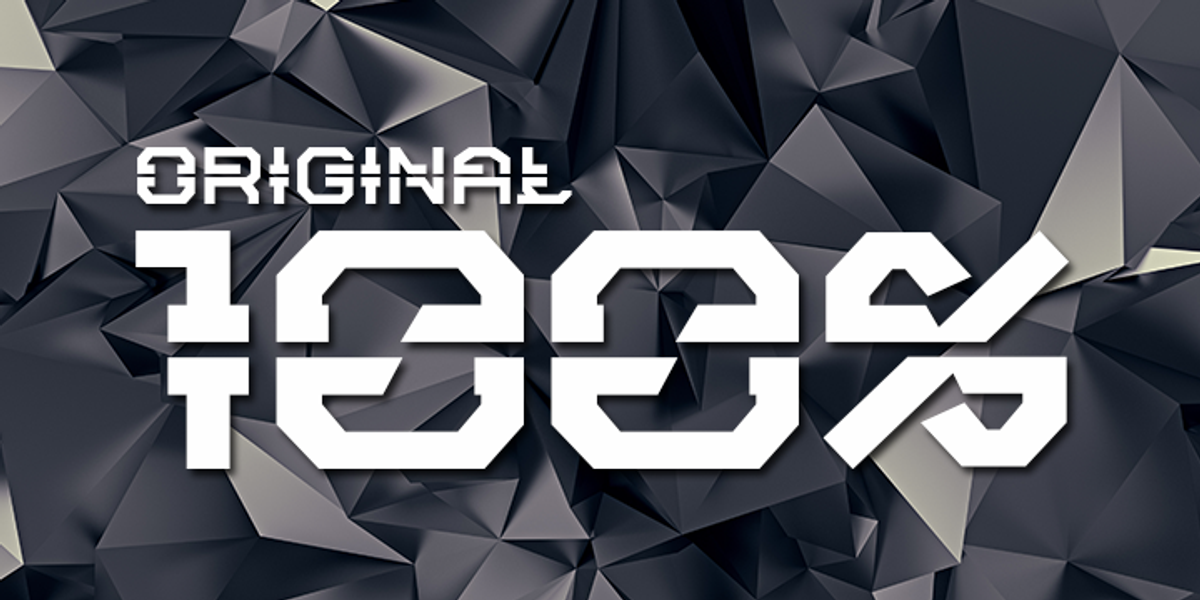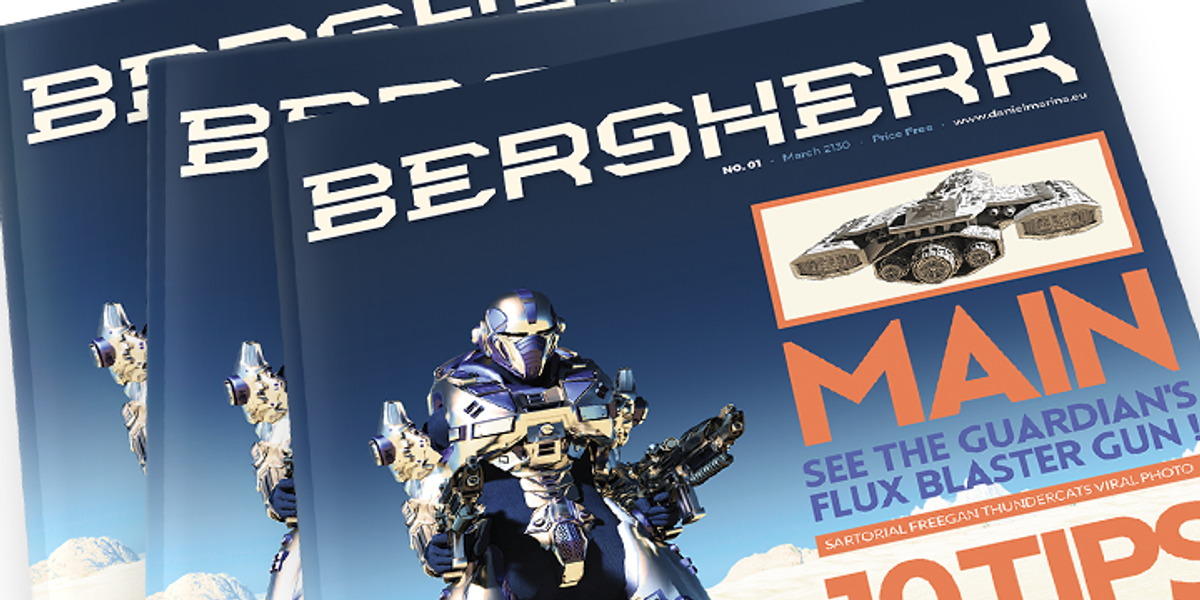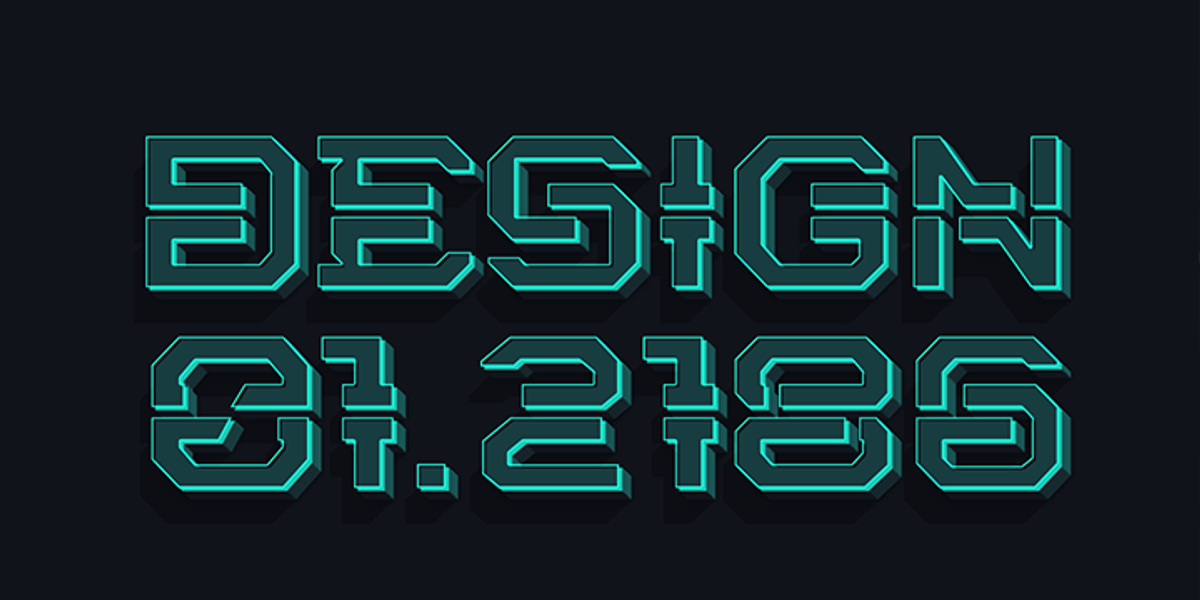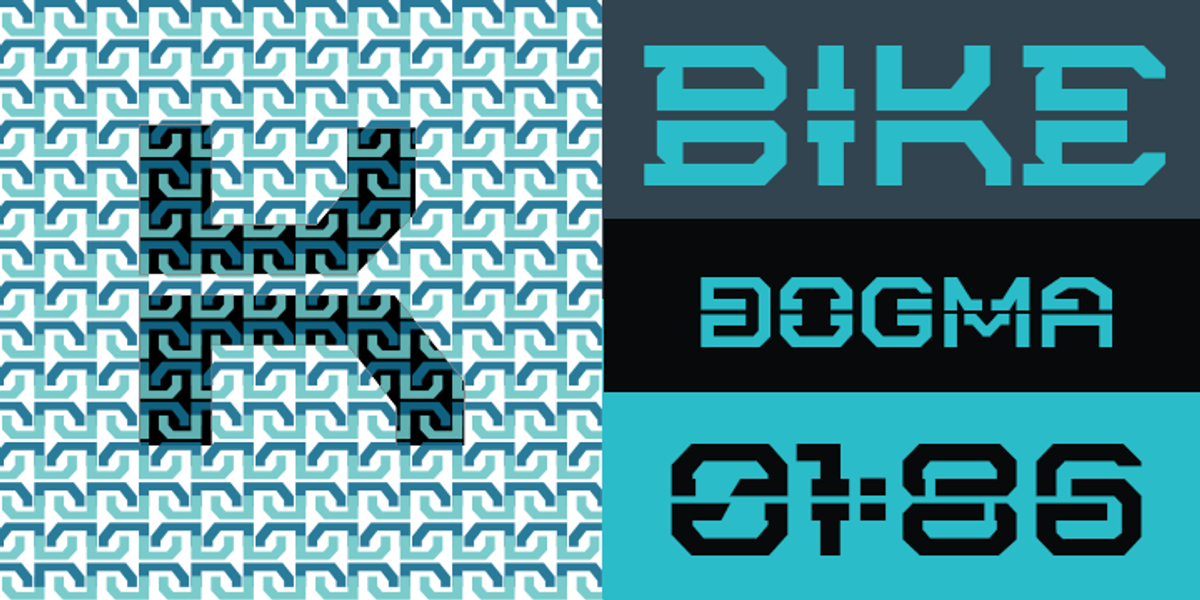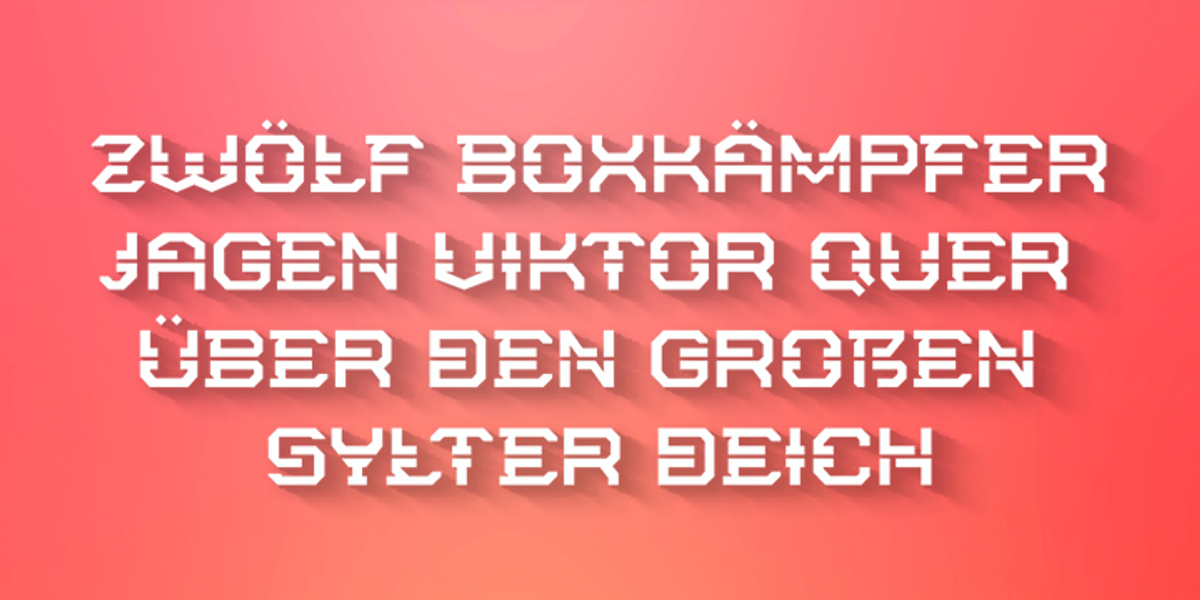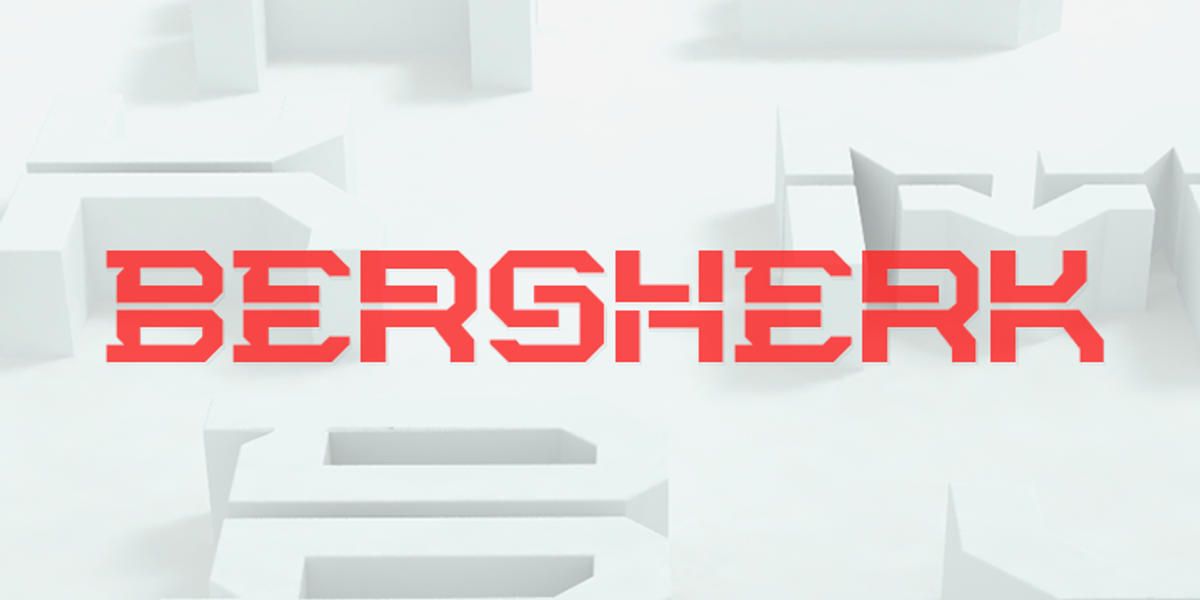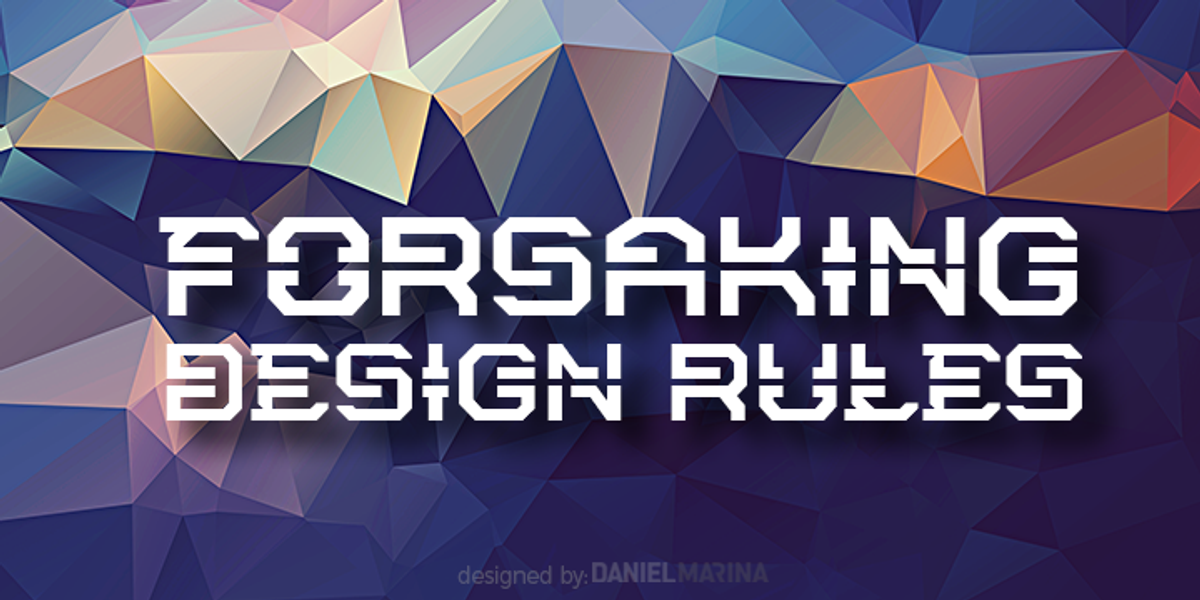
Bersherk
Bersherk is a geometric sans serif font designed to make a statement. Its bold, all-caps style and high contrast are perfect for headlines and magazine titles. The font includes alternate letters and ligatures, allowing for creative typography.